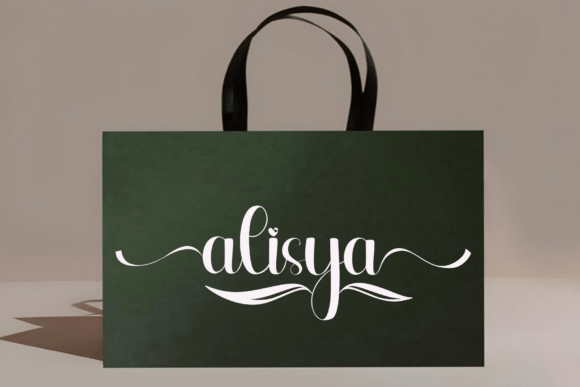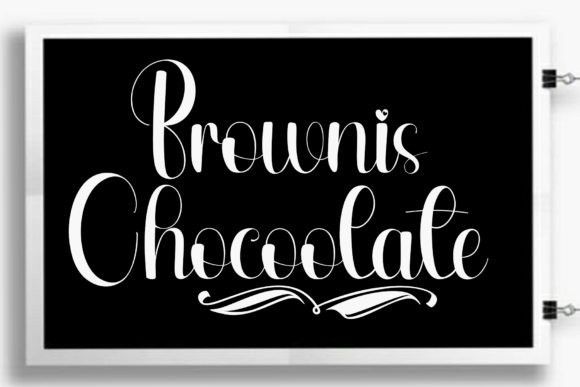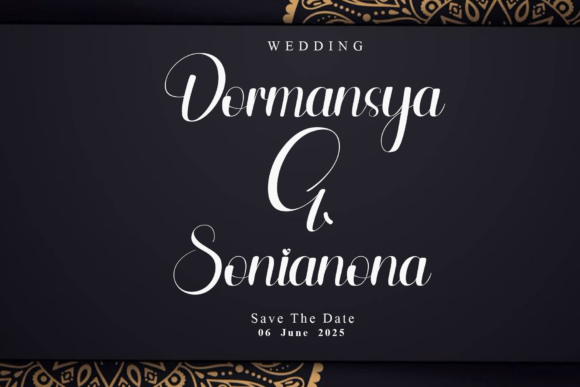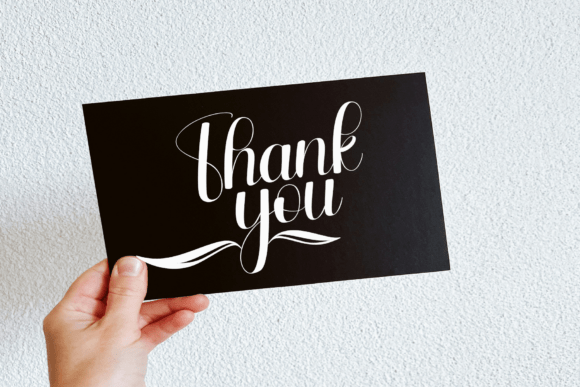
Introducing Amelia Font: Elevate Your Designs with Timeless Elegance
Are you on the hunt for a font that exudes sophistication, elegance, and a touch of modern flair? Look no further than Amelia Font, a stunning handwritten typeface that is sure to elevate your designs to new heights. Inspired by the timeless classics of calligraphy, Amelia Font brings a contemporary atmosphere to the table, making it the perfect addition to your typography arsenal.
The Inspiration Behind Amelia Font
Amelia Font draws its inspiration from the world of classic calligraphy, where the art of beautiful handwriting is revered. The font’s creator aimed to capture the essence of traditional calligraphy and infuse it with a modern twist, resulting in a typeface that is both stylish and versatile. The outcome is a font that boasts impeccable form, balanced and varied, making it an excellent choice for a wide range of design projects.
Key Features of Amelia Font
So, what sets Amelia Font apart from other typefaces? Here are some of its key features:
- Handwritten with love: Amelia Font is a carefully crafted handwritten font, imbuing it with a personal touch that is hard to replicate with generic typefaces.
- Contemporary atmosphere: The font’s modern take on classic calligraphy ensures it stays relevant and fresh, perfect for designs that demand a current aesthetic.
- Balanced and varied: With a keen eye for detail, Amelia Font offers a balanced and varied design, making it suitable for a broad spectrum of projects, from elegant headings to body text.
- Impeccable form: The font’s attention to detail and commitment to impeccable form ensure that it looks stunning in any context, whether digital or print.
Use Cases for Amelia Font
Amelia Font’s versatility makes it an excellent choice for a multitude of design projects. Here are some use cases where Amelia Font truly shines:
- Branding and logos: The font’s elegant and modern design makes it perfect for creating sophisticated brand identities and logos.
- Wedding and event designs: Amelia Font’s romantic and whimsical feel makes it an ideal choice for wedding invitations, event branding, and other celebratory materials.
- Packaging and product design: The font’s stylish and contemporary vibe lends itself well to product packaging, labels, and other marketing materials.
- Digital and print media: Amelia Font’s legibility and aesthetic appeal make it suitable for use in digital media, such as websites, blogs, and social media graphics, as well as print materials like brochures, magazines, and posters.
Why Choose Amelia Font?
With so many fonts available, why should you choose Amelia Font for your next project? Here are a few compelling reasons:
- Unique and distinctive: Amelia Font’s elegant and modern design sets it apart from more generic typefaces, ensuring your designs stand out from the crowd.
- Highly versatile: The font’s adaptability makes it suitable for a wide range of projects, from delicate and feminine to bold and statement-making.
- Easy to read and use: Amelia Font’s clear and legible design ensures that your message is conveyed effectively, making it perfect for body text and headings alike.
In conclusion, Amelia Font is a stylish and versatile handwritten typeface that brings a touch of timeless elegance to your designs. Its contemporary atmosphere, impeccable form, and balanced design make it an excellent choice for designers and crafters looking to elevate their projects. Whether you’re working on branding, packaging, digital media, or print materials, Amelia Font is sure to make a lasting impression.